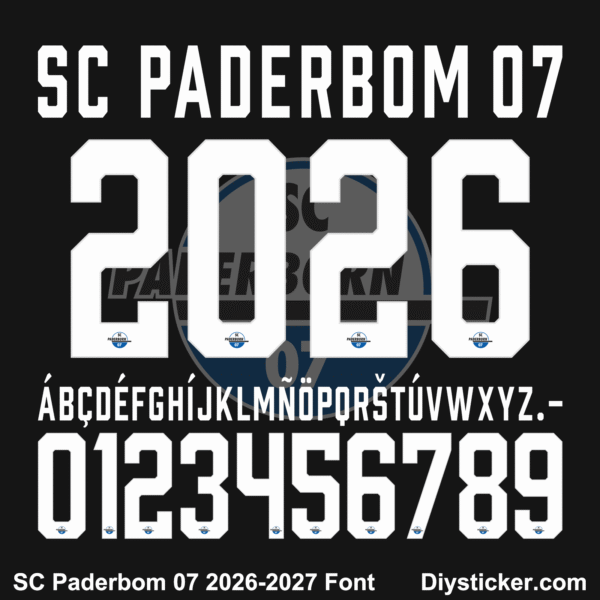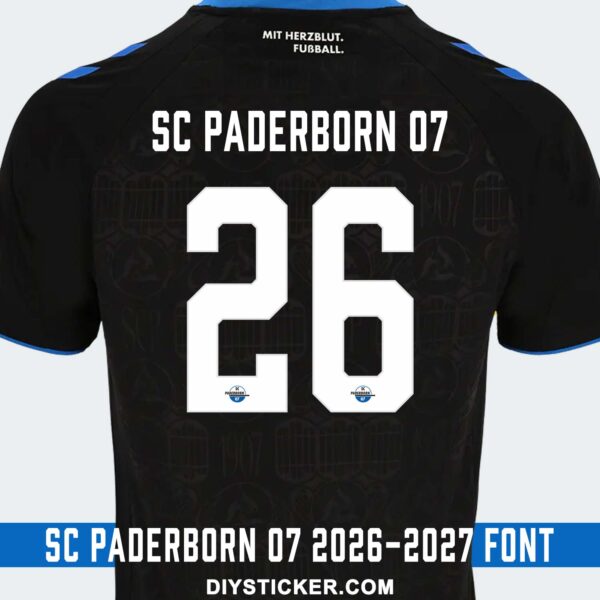
SC Paderborn 2026-2027 Font & Numbers Vector Kit: Premium German Club Customization
Upgrade your custom print production with the high-performance SC Paderborn 2026-2027 font and complete numbers set. Designed to perfectly replicate the distinctive club look worn at the Home Deluxe Arena, this digital toolkit offers unrivaled geometric precision. Whether you are creating a custom name-set for a passionate Paderborn fan or compiling promotional sports signage, our vector files ensure factory-fresh alignment. Discover more iconic European club layouts by exploring our curated repository.
Aesthetic Design Breakdown & Typography Engineering
The SC Paderborn 2026-2027 font showcases a bold, block-style athletic geometry that brings a commanding presence to the pitch:
Chiseled Octagonal Geometry: The numbers utilize a heavy, block-style construction with clean 45-degree chamfered corners. This geometric architecture eliminates soft curves, offering a strong, modern industrial look.
Condensed, High-Impact Architecture: The alphabet is engineered with a tall, compressed framework. This narrow width ensures that longer player names fit beautifully across the jersey shoulders without losing legibility or thickness.
Integrated Club Crest Identity: Positioned perfectly at the lower center baseline of each digit is the official miniature SC Paderborn 07 crest, ensuring complete replica authenticity for high-end garment customization.
Pristine High-Contrast White Palette: Designed to deliver striking visual contrast when rendered in crisp white against the club’s dark, subtly patterned black and blue home jerseys.